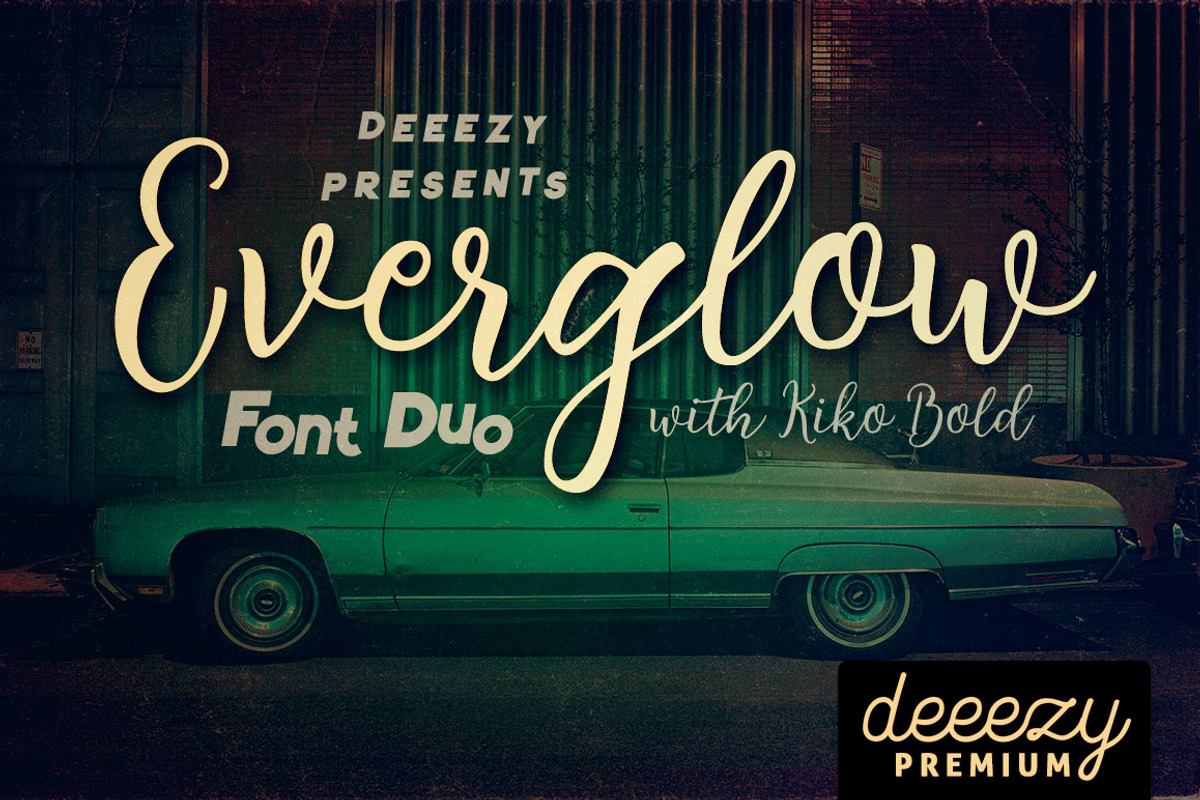
Everglow Script Font Duo Free Download
Everglow Script Font Duo Free Download is a beautiful font duo that combines a graceful script font with a complementary sans-serif typeface. The script font features elegant, flowing letterforms that give a personalized, handwritten feel, while the sans-serif font provides a clean and modern contrast, making this duo perfect for projects that need both sophistication and readability.
Everglow Script Font Duo Free Download is ideal for a wide range of design applications, including wedding invitations, logos, branding, social media graphics, and editorial layouts. The combination of the stylish script with the straightforward sans-serif creates a well-balanced, versatile look that works for both formal and casual designs.